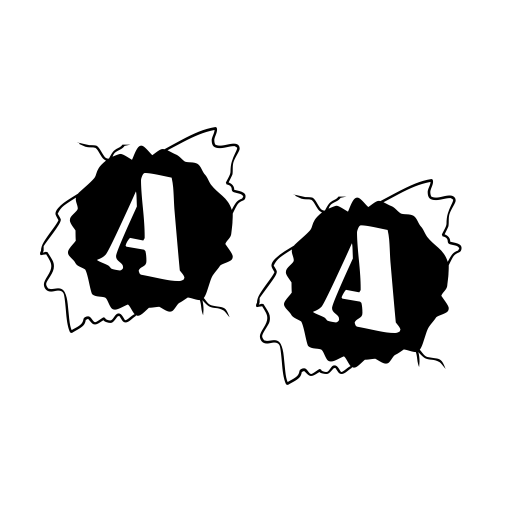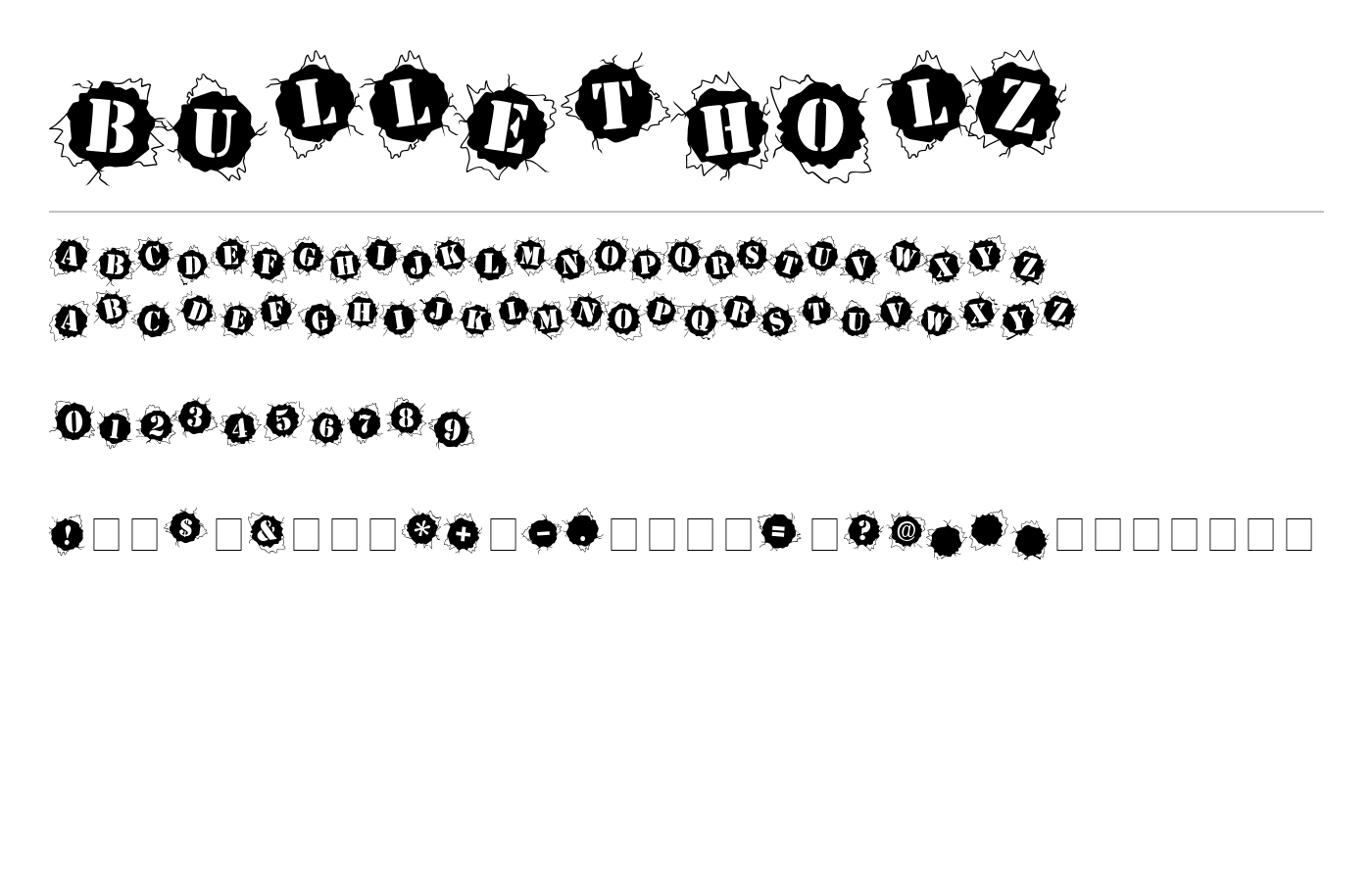
BulletHolz is a bold and decorative display font characterized by its strong stencil-like serif letters set against dynamic, jagged shapes reminiscent of bullet holes, giving it a rugged, edgy feel. This uppercase-only font is perfect for creating impactful headlines or logos where a sense of intensity and toughness is desired, such as in action-themed designs or adventurous branding. Its bold weight and unique graphic elements make it ideal for posters, signage, and packaging that need to grab immediate attention with a distinctive, gritty personality.
BulletHolz Font
About BulletHolz Font